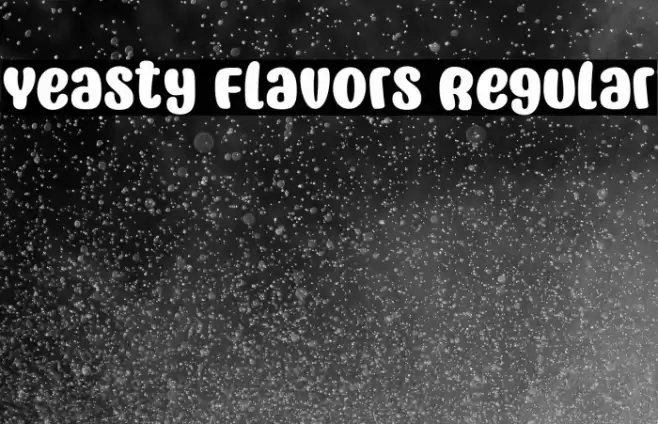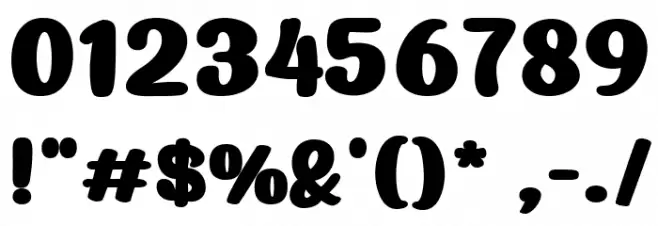
Yeasty Flavors Regular Font
Yeasty Flavors Regular Description
This font features a playful and bold design with rounded, bubbly characters that convey a sense of fun and whimsy. The letters are thick and have a consistent stroke width, giving them a strong presence on the page. The overall style is reminiscent of retro or vintage designs, making it suitable for projects that require a touch of nostalgia. The characters are evenly spaced, providing a balanced and harmonious appearance. This font includes a full set of uppercase and lowercase letters, numbers, and a variety of special characters, making it versatile for different design needs.
A playful, bold font with rounded, bubbly characters ideal for retro designs from Uncategorized fonts.
- Font: Yeasty Flavors Regular
- Proposed Projects: Perfect for children's books, playful branding, retro-themed posters, and creative packaging designs.
- Overall Style: Vintage